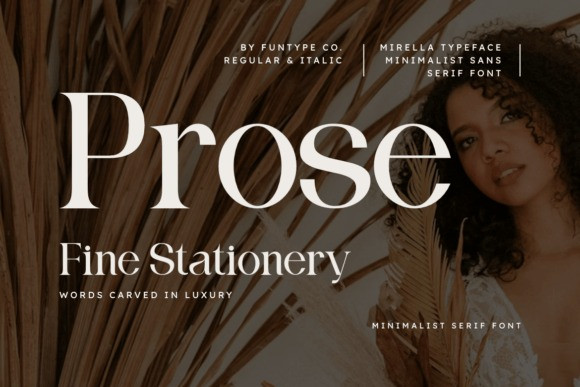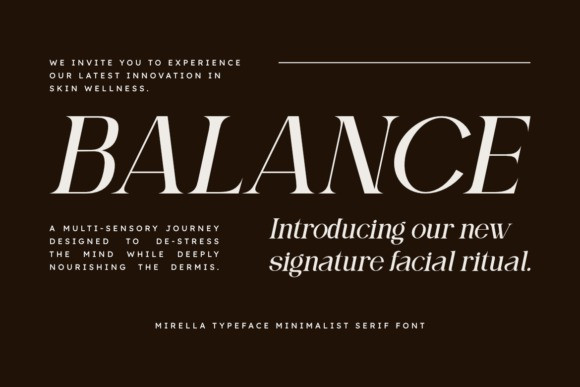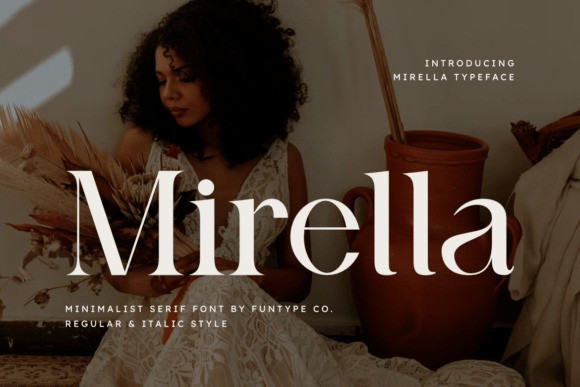
Mirella Font
Mirella Font is a bold and powerful minimalist serif font designed for impactful and elegant typography. With its refined structure and high-contrast lines, this font is perfect for strong headlines, professional branding, luxury logos, and modern editorial designs. Its confident design gives your visuals a striking, professional, and sophisticated look. Provided in OTF and TTF formats for maximum compatibility across all design platforms.